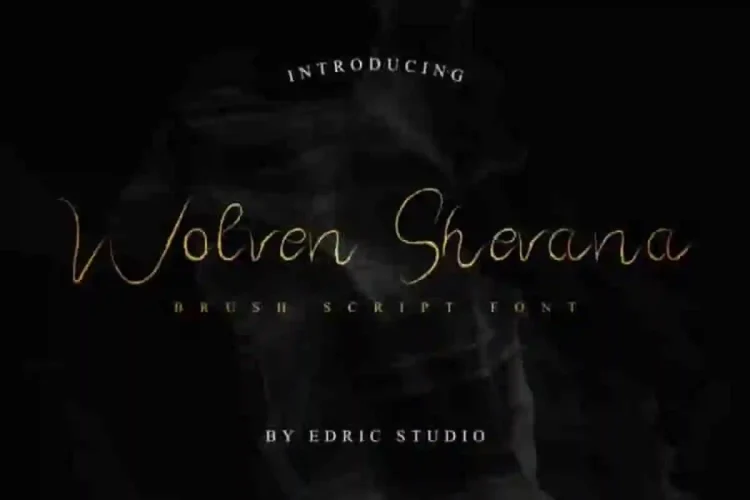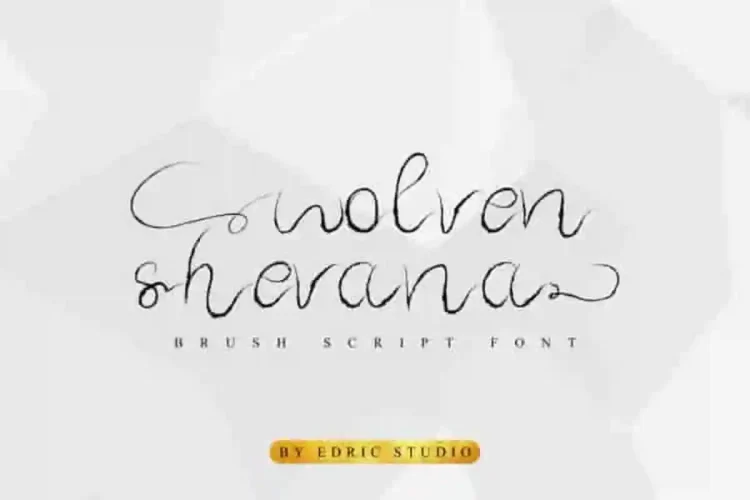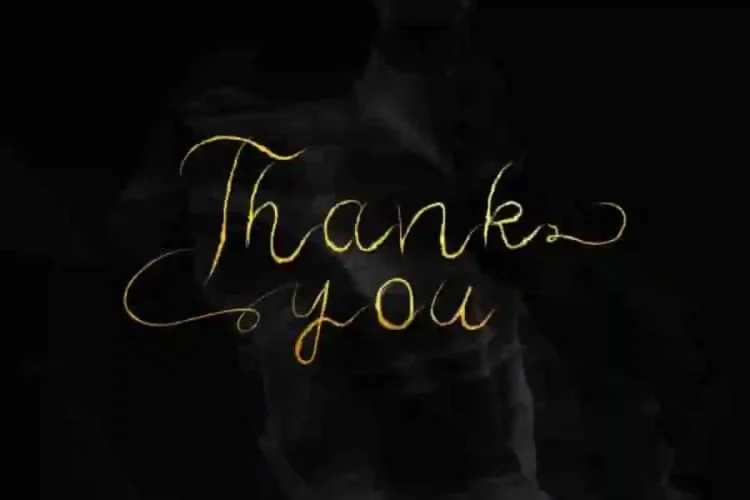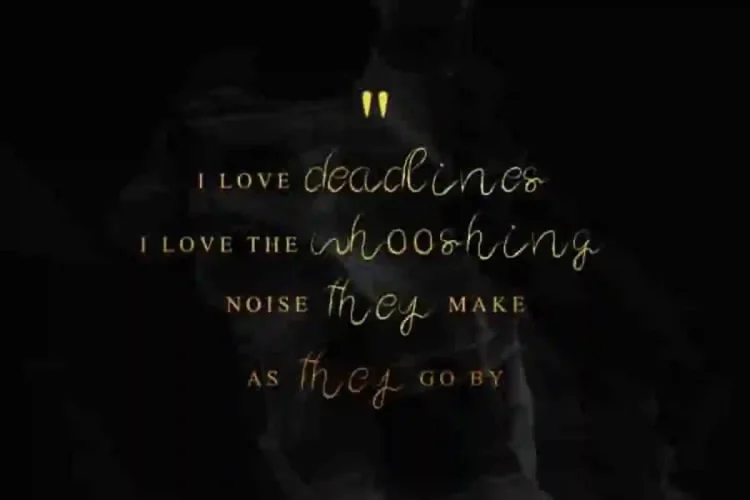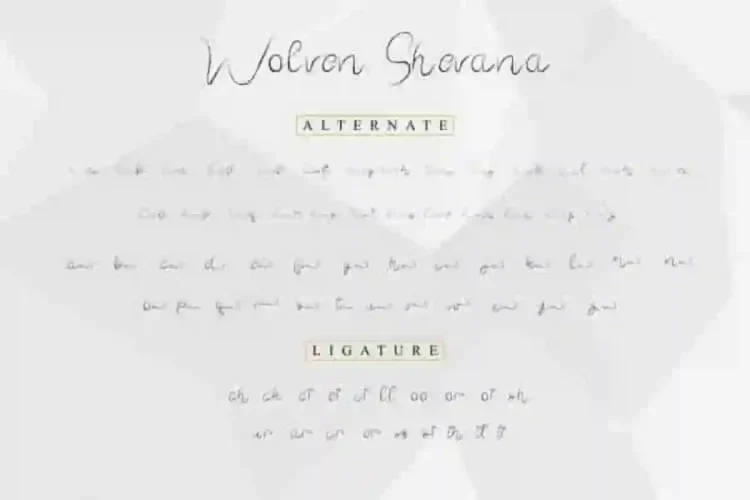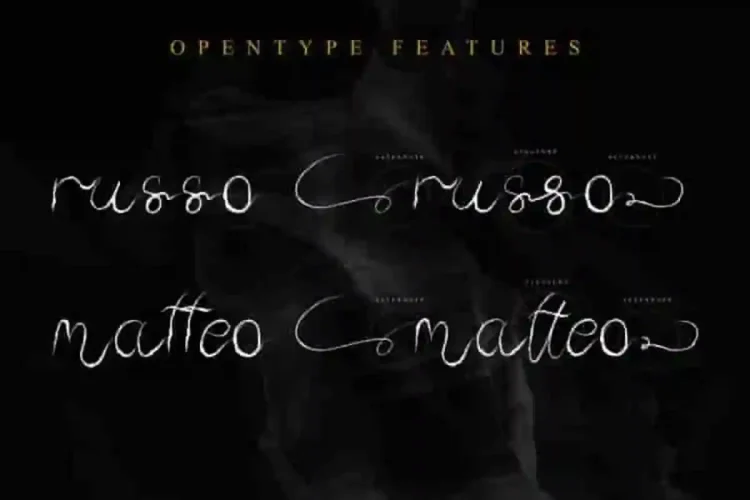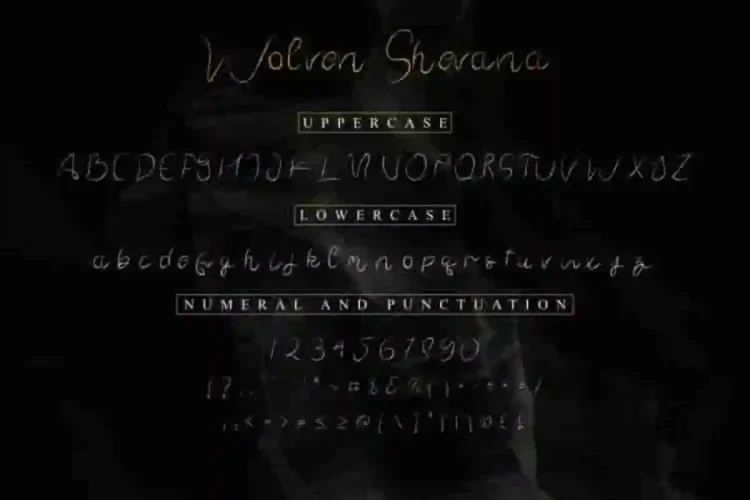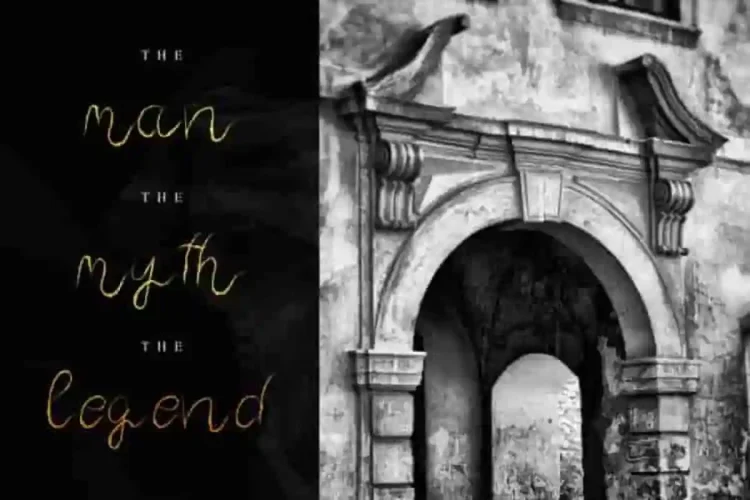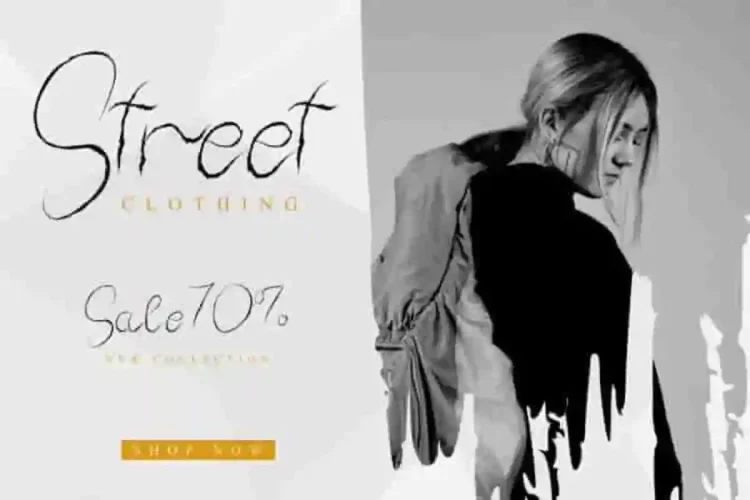
Wolven Shevana Brush Script Font
The newest font from our lovely artist : Wolven Shevana Font
This is a Display font, handcrafted from our Studio here in, Indonesia. The artists/designers of this beautiful tyeface is Yasri and Suci.
Wolven Shevana Font is an exclusive handwritting script typeface with rough brush texture. This font has an awesome characters set, perfectly managed with well spaced and kerning. The theme style of this font is horror, vintage, grunge, dark and mysterious brush style.